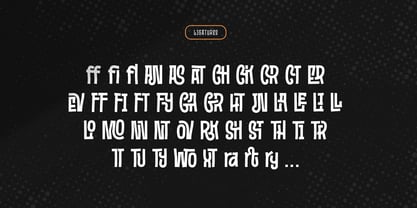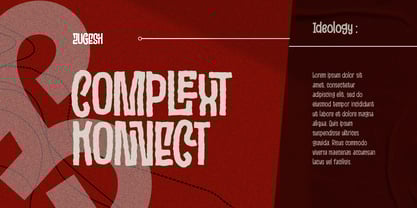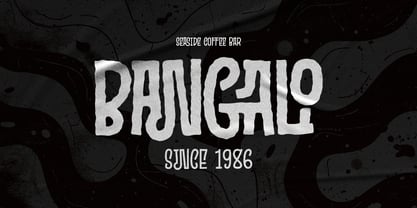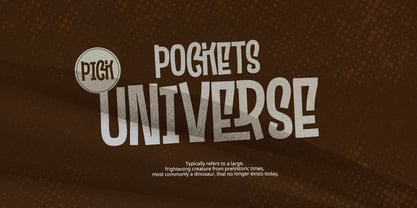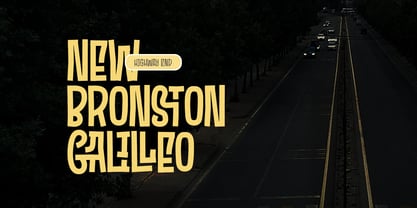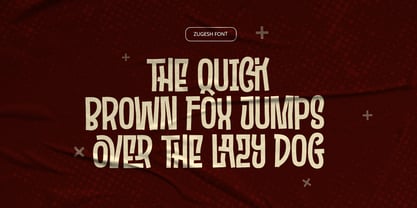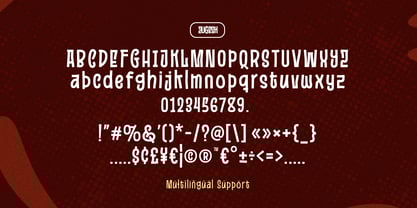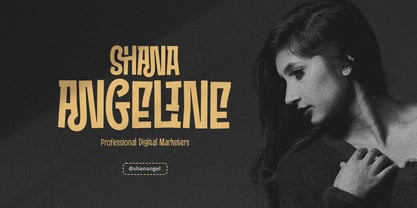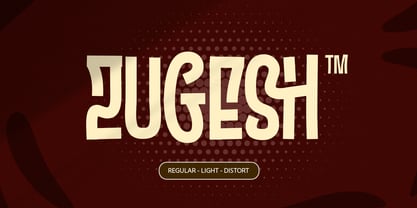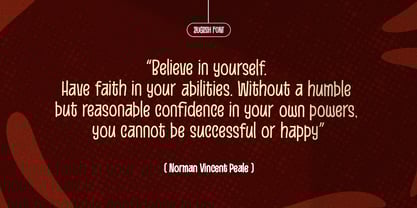
Zugesh
by Grontype
The Zugesh Font Family was designed by Jarnawi Saja and published by Grontype. Zugesh contains 3 styles and family package options. More about this family
Zugesh is a modern and unique decorative font designed to stand out in any creative project. Available in three distinctive styles—Regular, Light, and Distort—each variation carries its own personality while maintaining a cohesive design language. Enhanced with a set of unique ligature variations, Zugesh offers flexibility and originality, making it the perfect choice for bold headers, striking logotypes, and eye-catching branding projects.
Features:
• Unique Decorative Font
• Awesome Ligatures pairs
• Basic Latin Glyphs
• Numeral and Punctuation
• Currencies
• Multilingual Support
Designers: Jarnawi Saja
Foundry: Grontype